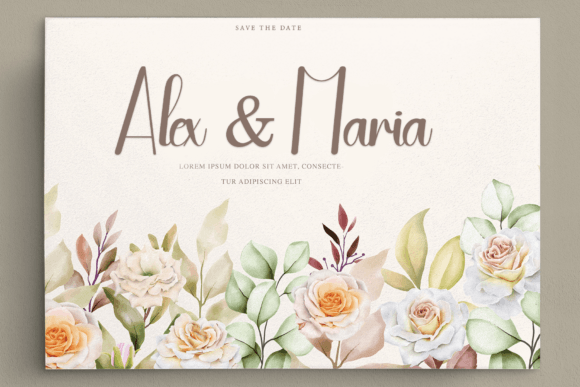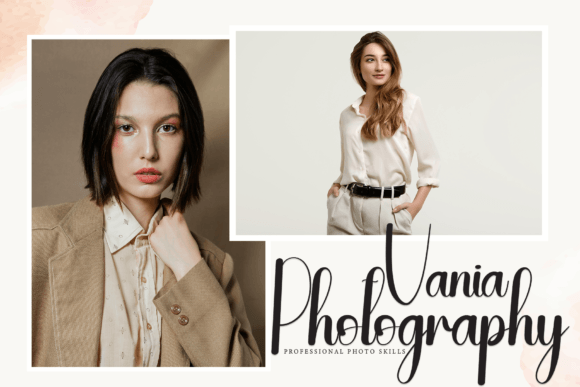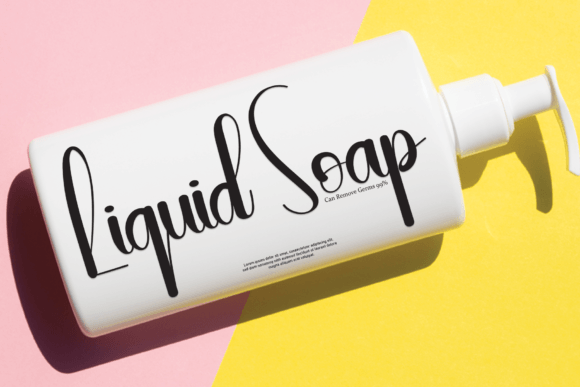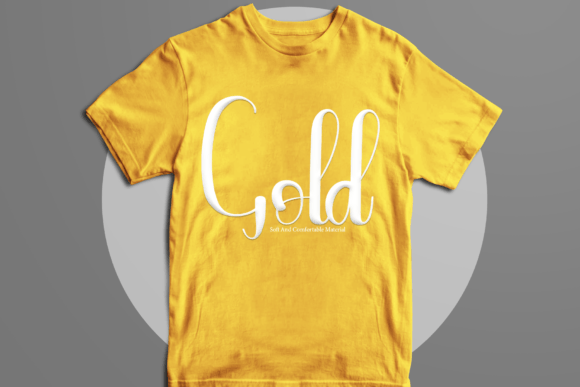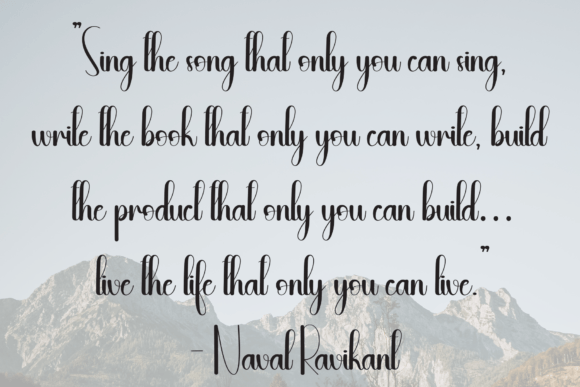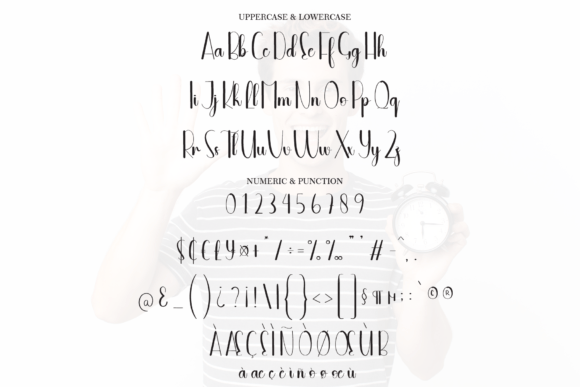
The Sweet Charm of Fiveminutes Font: A Designer’s Delight
I’ll never forget the time I was working on a wedding invitation project, and my client asked for a font that was “fun, yet elegant.” I scoured the internet, trying out font after font, but nothing seemed quite right. That was until I stumbled upon Fiveminutes Font. This sweet and friendly handwritten font has been a game-changer for me, and I’m excited to share its charm with you! 😊
An Honest Review of Fiveminutes Font
- ✨ Fresh and neat design that’s perfect for a variety of projects
- ✅ Friendly and approachable feel that’s sure to delight your audience
- 💕 Ideal for writing wedding invitations, cards, and other designs that need a fun touch
- 🎉 Works beautifully for both digital and print projects
While Fiveminutes Font is an amazing addition to any design project, there are a few things to keep in mind:
- ⚠️ Some users have reported issues with kerning, so be sure to adjust as needed
- 🤔 Limited availability of stylistic alternates, but the existing options are still quite versatile
The Story Behind Fiveminutes Font
Fiveminutes Font was designed with the intention of creating a friendly, approachable typeface that’s perfect for everyday use. The designer aimed to craft a font that’s both fun and elegant, making it suitable for a wide range of projects. Whether you’re a designer, crafter, or creative hobbyist, Fiveminutes Font is sure to become a favorite in your collection!
Q: What type of projects is Fiveminutes Font best suited for?
A: Fiveminutes Font is ideal for wedding invitations, cards, and other designs that need a fun, yet elegant touch. It’s also great for creative projects, branding, and party invitations.
Q: Is Fiveminutes Font available in different weights or styles?
A: Currently, Fiveminutes Font is available in a single weight. However, the font’s versatility and range of OpenType features make it suitable for a variety of design applications.